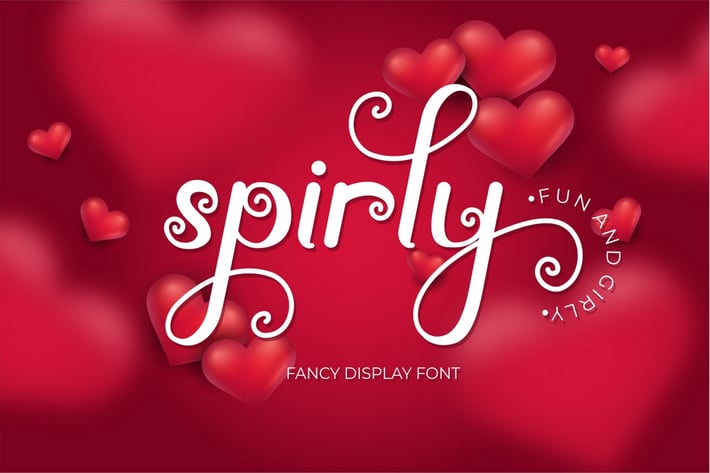
Spirly - Fancy Display Font
Spirly
Introducing Spirly, a fancy display font with a lot of alternates character. Each character has a spiral shape, so make this font is very unique.
This font is perfect for logotype creation, lettering compositions, wedding invitations, fashion projects, book design cover, magazines typography, cards, packagings, posters, branding, Quote and more.
Come with Opentype feature with a lot of alternates, its help you to make great lettering. This font is also support multi language.